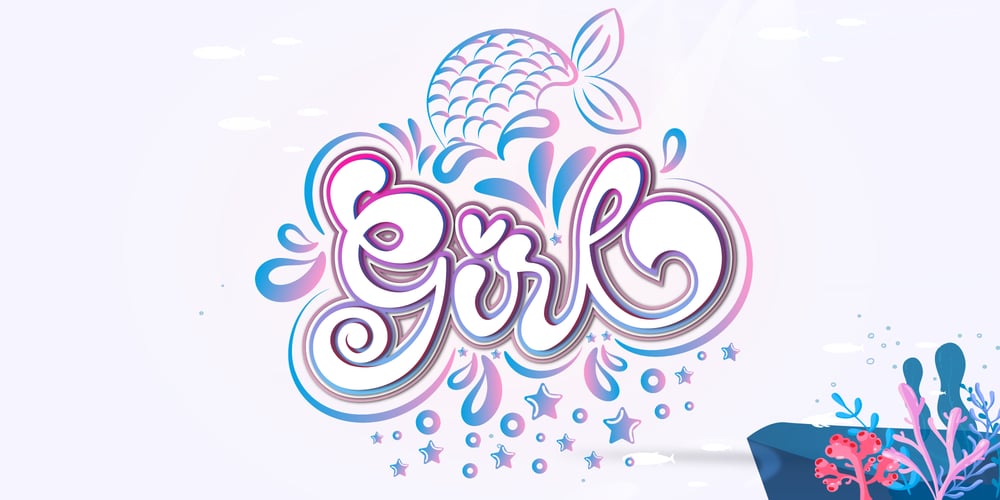
Girl Mermaid Font Family was designed by Ake Thanantreesak and published by Ake. Girl Mermaid contains 2 styles and family package options. Girl is a cool, incredibly detailed and chic duo font (script and dingbats). This font is PUA encoded which means you can access all of the glyphs and swashes with ease! Fall in love with its incredibly versatile style and use it to create spectacular designs!